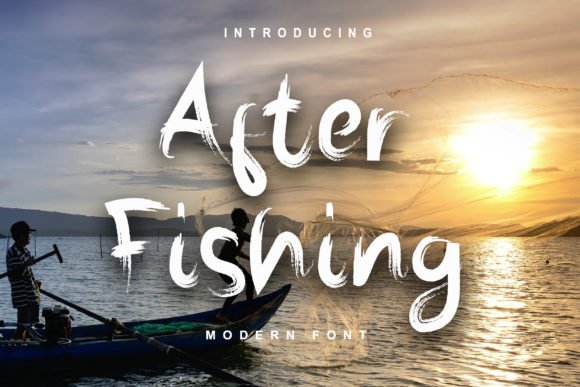
The Perfect Catch for Your Next Design Project
Have you ever been stuck on a design project, searching for that perfect font to bring it all together? You’re not alone. We’ve all been there, scrolling through font libraries, trying to find the one that captures the essence of our vision. And then, just like reeling in a big catch, you stumble upon it – the perfect font to elevate your creation.
Enter the After Fishing Font, a chic and brushed display font that’s about to become your new best friend. This stylish font is designed to add a touch of sophistication to any project, whether it’s a blog post, a social media graphic, or a marketing campaign. With its versatility and elegance, the After Fishing Font is an incredible asset to any designer’s library.
After Fishing Font Key Features
- Unique Characteristics: The font features a unique, hand-drawn design with a mix of modern and vintage elements, giving it a distinctive and eye-catching look.
After Fishing Font Review
Overall, I was intrigued by the unique, hand-drawn style of After Fishing Font. It’s certainly eye-catching and could work well for certain projects.
Here are some things that stood out to me:
- ✨ The font’s casual, laid-back vibe is perfect for projects that need a relaxed feel.
- ✨ The varying line widths and imperfections give the font a natural, handwritten feel.
- ✨ The font is highly legible, making it suitable for body text or short paragraphs.
However, there are a few limitations I encountered:
- ⚠️ The font’s character set is limited, making it less suitable for projects that require a wide range of characters (e.g., accented letters, symbols).
- ⚠️ The font’s size and weight options are limited, which can make it difficult to customize to your needs.
Overall, I think After Fishing Font is a great choice for projects that need a unique, casual feel. While it may not be the best choice for more formal or complex projects, it’s a great option for designers looking for a distinctive, hand-drawn look.
The After Fishing Font is ideal for designs that require a unique, handwritten feel. Use it for:
– Beach-themed designs
– Fishing-related graphics
– Handwritten-style quotes and phrases
– Watercolor-inspired artwork